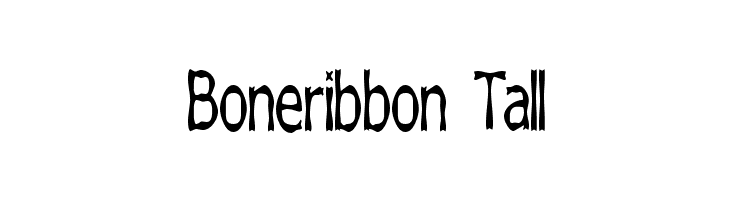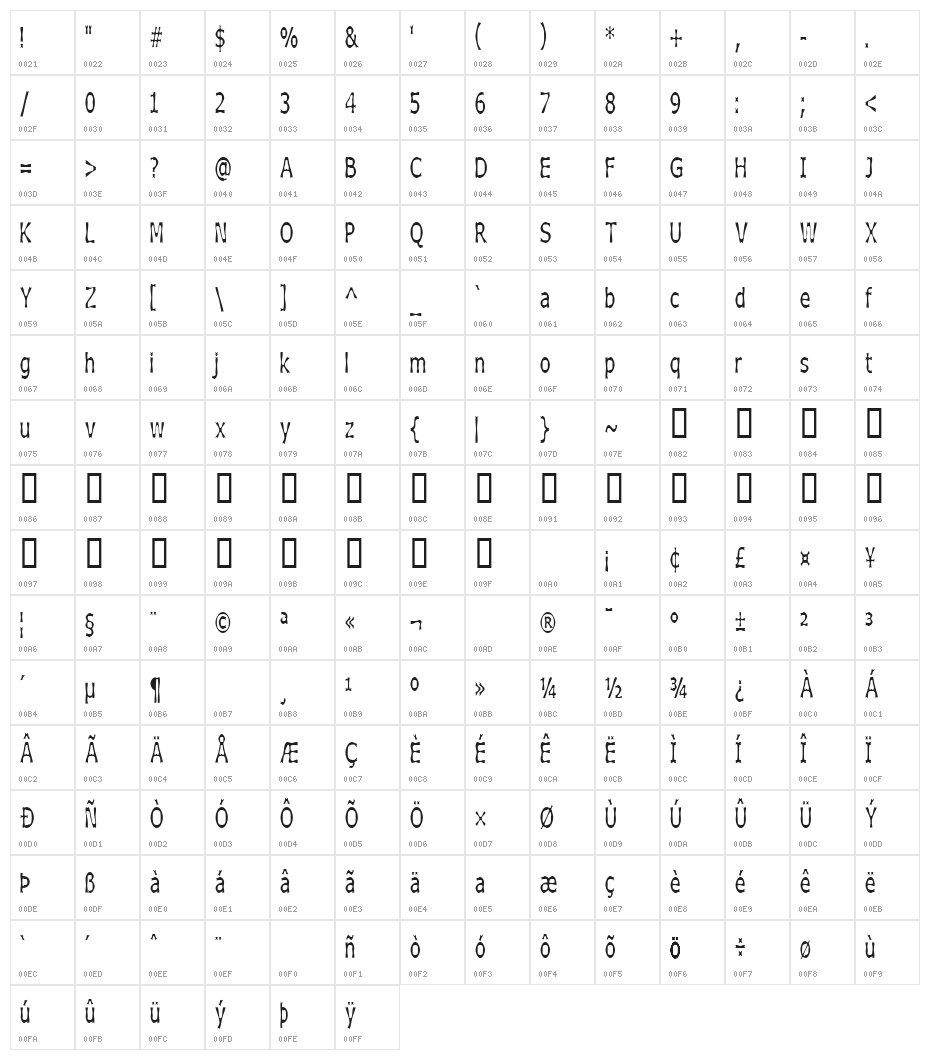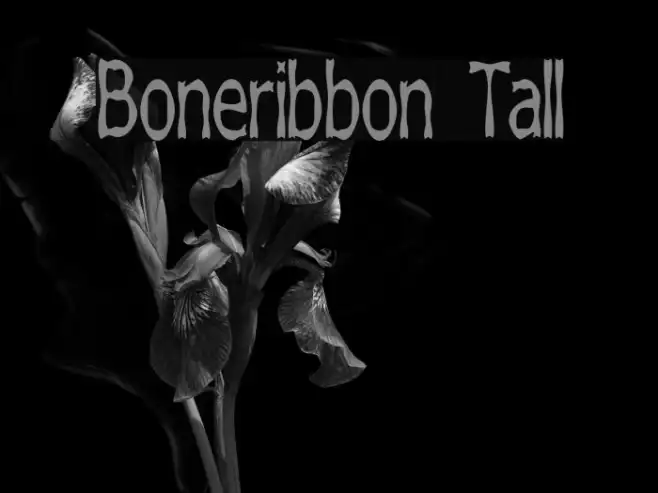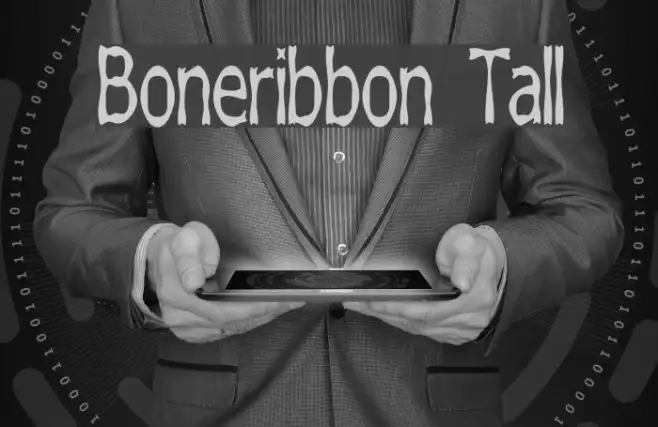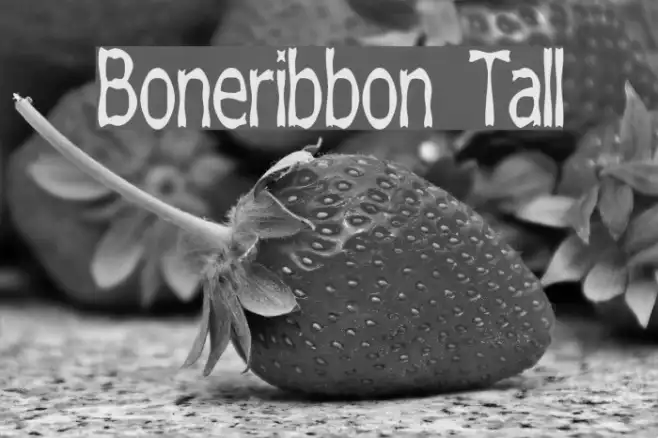
Boneribbon Tall Font
Boneribbon Tall Description
This font features a unique and artistic design with an organic, hand-drawn appearance. The characters exhibit irregular, wavy lines that give them a playful and whimsical feel. The uppercase and lowercase letters maintain a consistent style, with slightly exaggerated curves and varying stroke widths that add to the font's charm. The numbers and special characters are crafted with the same attention to detail, ensuring a cohesive look across all glyphs. This font is perfect for projects that require a touch of creativity and individuality.
| Proposed Projects | Ideal for creative projects such as children's books, artistic posters, and unique branding materials. |